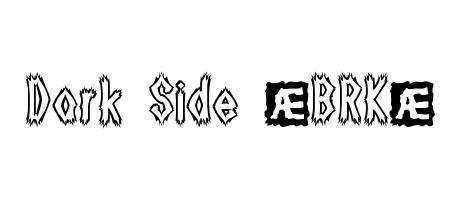
Dark Side
By Ænigma
Dark Side (BRK) is a bold, blackletter-inspired display typeface. Its sharp, jagged edges and dramatic serifs give it a powerful, almost menacing feel. The letters are slightly condensed, creating a compact and intense look. It’s a font that screams rock and roll or fantasy, perfect for edgy branding or titles.
Dark Side (BRK)